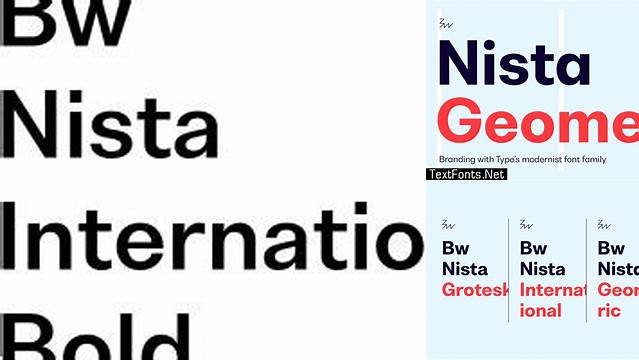
Hey guys! Looking to add a touch of modern elegance to your projects? The BW Nista International Bold font might just be what you need. This font family is known for its clean lines, versatility, and strong visual presence. In this comprehensive guide, we'll dive deep into everything you need to know about the BW Nista International Bold font, including where to find it, how to download it for free, and creative ways to use it in your designs. Let’s get started!
1. What is BW Nista International Bold Font?
Before we jump into the nitty-gritty of downloading and using it, let's understand what makes the BW Nista International Bold font so special. This font is a contemporary sans-serif typeface that exudes sophistication and clarity. It's designed to be highly legible, making it suitable for a wide range of applications, from branding and advertising to web design and print materials. The bold variant, in particular, offers a striking and impactful look, perfect for headlines and titles that need to grab attention. This font's versatility and modern aesthetic have made it a favorite among designers worldwide, adding a touch of class to any project. Whether you’re working on a sleek website, an eye-catching poster, or a professional business presentation, the BW Nista International Bold font can help you achieve a polished and professional look. The key to its appeal lies in its balance of simplicity and character, ensuring it remains readable and visually engaging across different mediums.
2. Key Features of BW Nista International Bold
What sets the BW Nista International Bold font apart from other bold fonts? Let's explore its key features. First off, its clean and modern design makes it incredibly versatile. It works well in both digital and print formats, maintaining its clarity and impact across various media. The font's bold weight adds a strong, assertive presence, making it ideal for headlines, titles, and any text that needs to stand out. Another notable feature is its excellent legibility. The letterforms are carefully crafted to ensure readability, even at smaller sizes, which is crucial for body text and detailed designs. Additionally, the BW Nista International Bold font often includes a comprehensive character set, supporting multiple languages and including various symbols and punctuation marks. This extensive support makes it a practical choice for international projects and diverse design needs. The font's balanced proportions and consistent letter spacing further enhance its readability and visual appeal, making it a reliable and attractive option for any designer. So, whether you're designing a website, creating marketing materials, or working on a branding project, the BW Nista International Bold font provides a solid foundation with its blend of style and functionality.